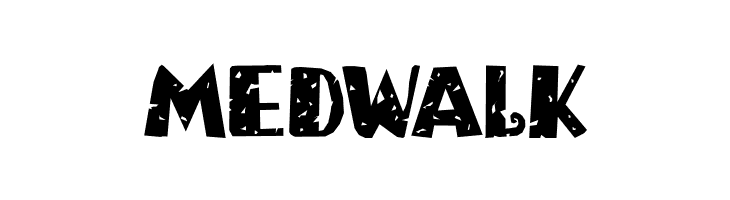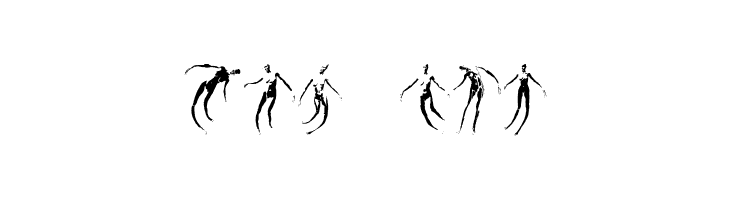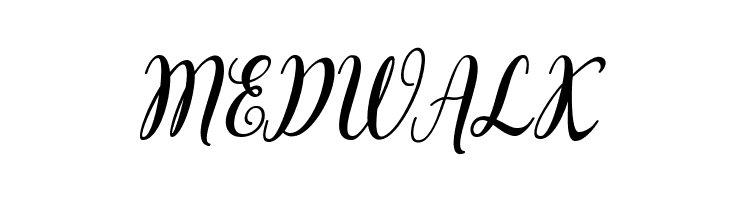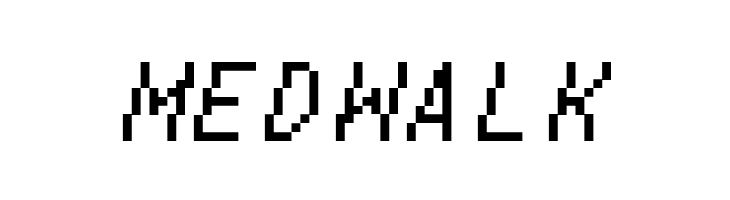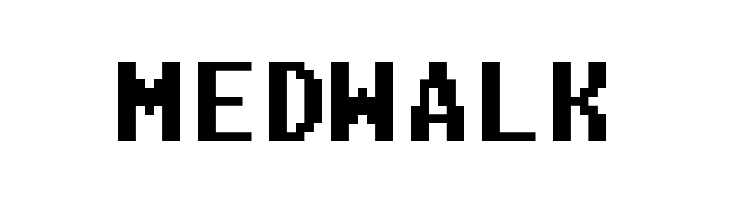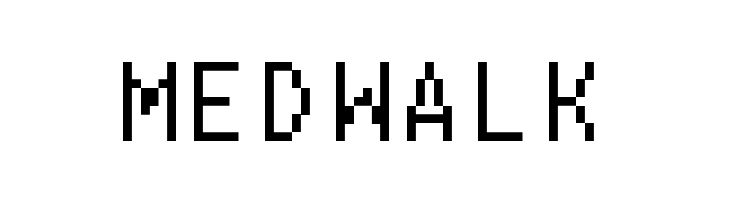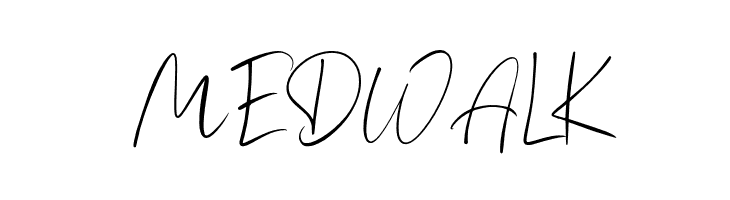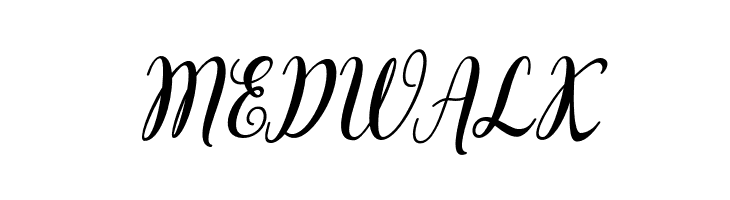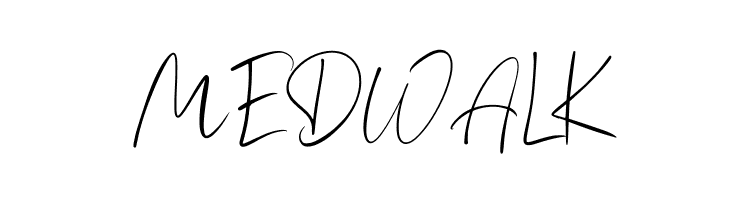
A pixelated, monospaced italic font with a retro digital aesthetic.
A pixelated, oblique font with a retro digital aesthetic.
A pixelated, monospaced font with a retro digital aesthetic.
Expressive, brushstroke figures form each glyph, evoking motion and artistry.
A bold, eroded font with a distressed and whimsical style.
A dynamic and elegant script font with flowing, connected strokes.
A dynamic and fluid script font with elegant, flowing letterforms.
An elegant and flowing script font with ornate uppercase and smooth lowercase letters.
A dynamic and elegant script font with flowing, cursive letterforms.